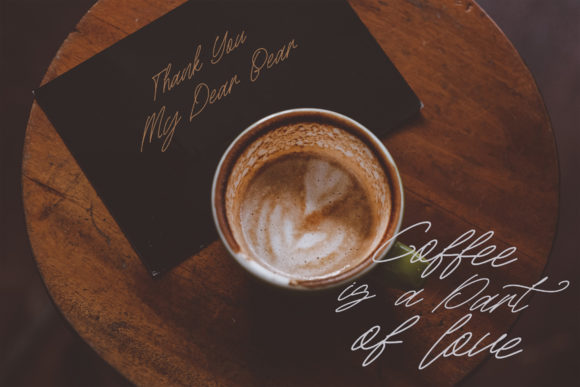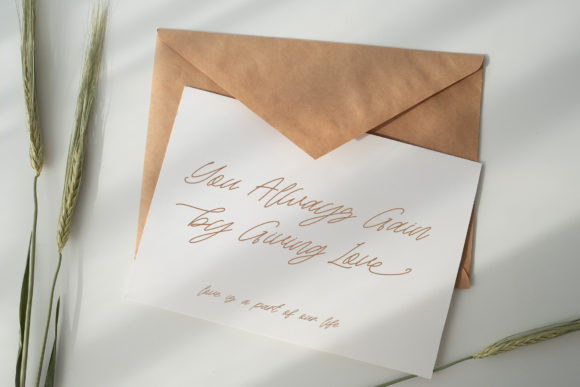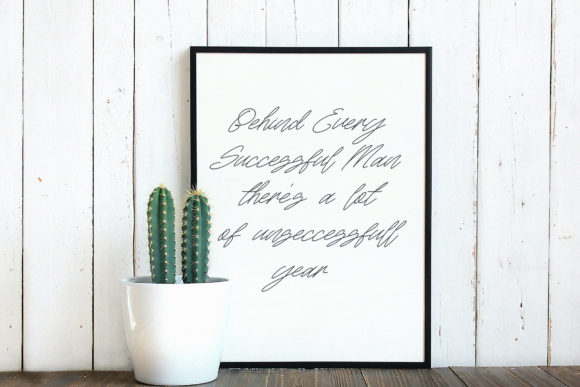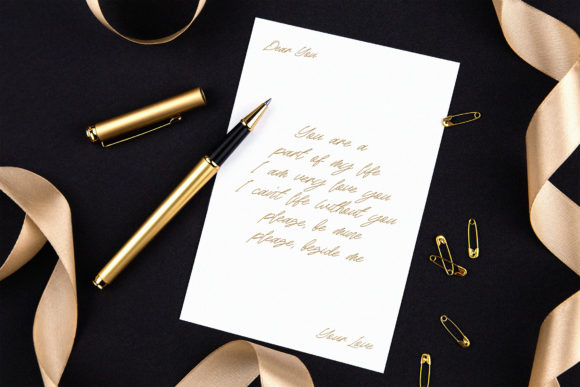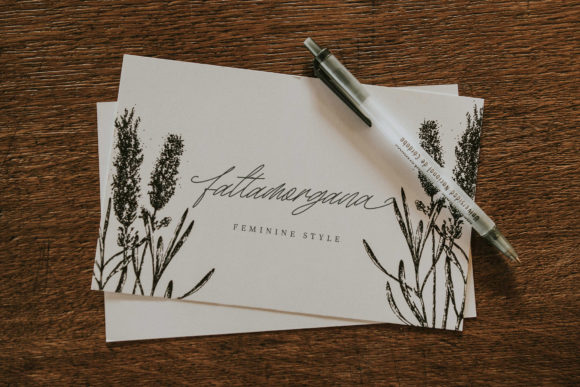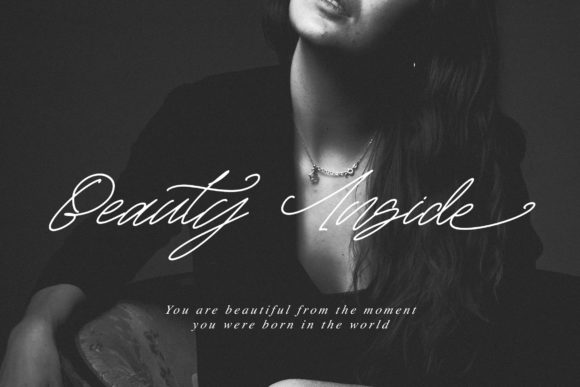
Introduction to Rattini Signature Font
Have you ever stumbled upon a beautiful handwritten font that makes your creative project stand out from the crowd? That’s exactly what happened to me when I discovered the Rattini Signature Font. Its authentic feel and stunning glyphs instantly sparked inspiration, and I knew I had to share it with fellow designers.
As a designer, I’m always on the lookout for high-quality fonts that can elevate my work. The Rattini Signature Font is a game-changer, offering a unique blend of classic calligraphy and modern style. With its varying baseline, smooth lines, and gorgeous glyphs, it’s perfect for creating eye-catching social media posts, beautiful stationery art, and even cute greeting cards.
Key Features of Rattini Signature Font
- Unique and elegant design, perfect for a creative project that requires a touch of sophistication
- Unique characteristics, including a distinctive flair and elegant strokes, set it apart from other fonts and make it a standout design resource
Honest Review: Rattini Signature Font
As a designer, I’m always on the lookout for high-quality design resources to elevate my creative projects. Recently, I stumbled upon the Rattini Signature Font, and I’m excited to share my honest review with you.
- Unique and stylish design: The Rattini Signature Font has a distinctive, elegant feel that sets it apart from other fonts.
- High quality: The font is crisp and clear, making it perfect for printing or digital use.
While I love the Rattini Signature Font, I do have a few minor complaints:
- Limited character set: The font only includes a basic set of characters, which may not be suitable for complex design projects.
- No bold or italic versions: If you need to add emphasis to your text, you may need to use a separate font.
Overall, I’m impressed with the Rattini Signature Font. Its unique design, high quality, and free download make it an excellent addition to any designer’s toolkit. While it has some limitations, I believe it’s a valuable resource for creative projects, and I’d definitely recommend it to fellow designers.
Tips for Getting the Most Out of Rattini Signature Font
Use Rattini Signature Font in conjunction with other design elements to create a visually appealing design. Experiment with different font sizes and colors to add depth and dimension to your design.
Rattini Signature Font is ideal for creating logos, business cards, and other design elements that require a high-quality, professional look. It’s also suitable for creating social media graphics, posters, and other marketing materials.
Q: What is the recommended usage for the Rattini Signature Font?
The Rattini Signature Font is suitable for a wide range of design applications, including logos, branding materials, and typography-based projects. It is not recommended for use as a display font for large blocks of text, as it is designed for elegant and sophisticated typography.